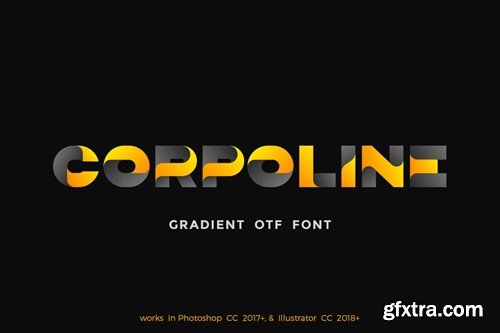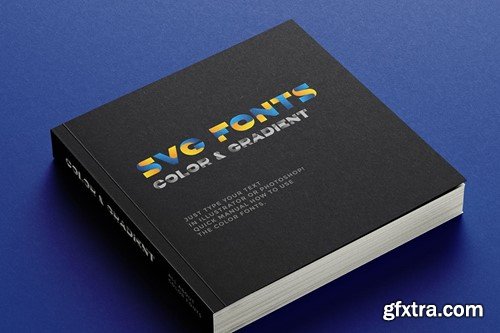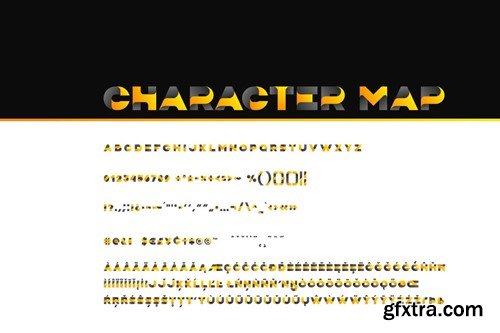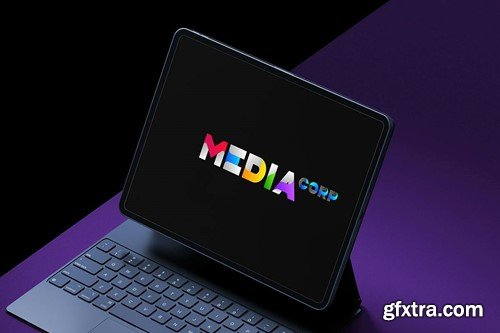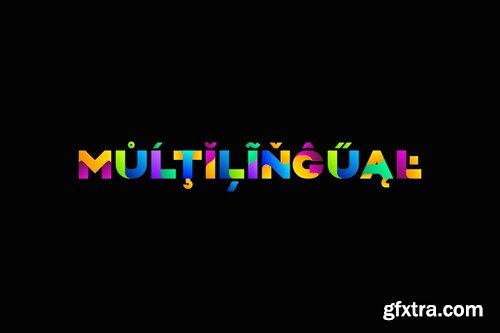
Corpoline Color OTF Font 8HJJMDN
!!!_IMPORTANT: The web-preview does not show the font in color, but please be sure it is works OK! Also please note that the font works in Photoshop CC2017 and higher and in Illustrator CC 2018 and higher only. Corpoline is corporate ribbon font designed for such areas as Media, Entertainment, Kids, Prints, Food etc. You may play with letters changing theirs colors, position, rotation to make new and interesting font combinations. Supported Languages: Bosnian, Catalan, Czech, Danish, German, English, Spanish, Estonian, Finnish, French, Irish, Croatian, Hungarian, Icelandic, Italian, Lithuanian, Latvian, Maltese, Norwegian, Polish, Portuguese, Romanian, Slovak, Slovenian, Albanian, Swedish, Turkish. --- ZIP includes: